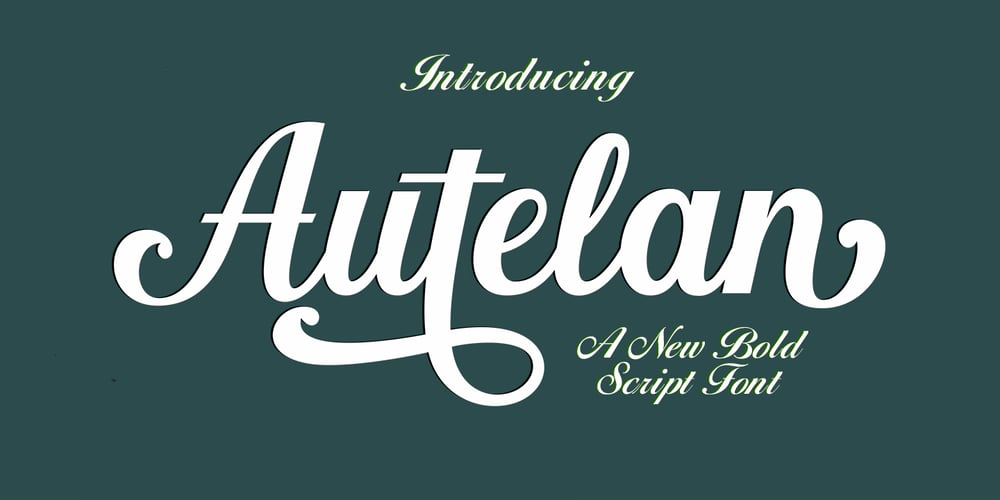
Autelan Font Family was designed by Muhammad Nasir and published by Aqeela Studio. Autelan contains 1 styles and family package options. Autelan Script is a contemporary calligraphy typeface. It’s a mix of retro and modern sans serif script. With Autelan, your designs will get a classic and elegant touch. Autelan can be used for various purposes such as logos, wedding invitations, T-shirts, letterheads, signage, labels, news, posters, badges etc.Thank You